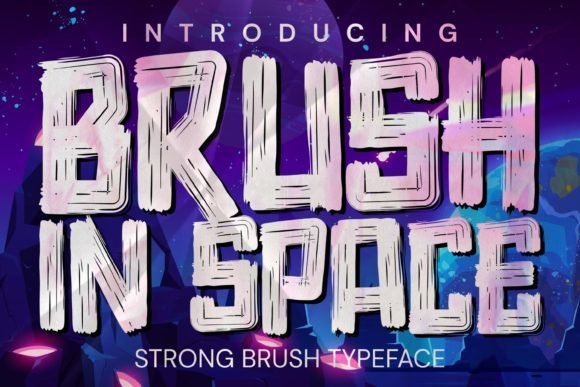
The Perfect Match for Your Next Creative Project
Have you ever stared at a blank canvas, waiting for the perfect idea to strike? It’s that moment when your imagination runs wild, and anything seems possible. As designers, we’ve all been there – searching for the perfect tool to bring our vision to life.
Enter Brush in Space Font, a bold and brushed display font that’s about to become your new best friend. This versatile font is designed to elevate any creation, whether it’s a stunning visual project or a thought-provoking message. With its unique blend of style and sophistication, Brush in Space Font is the perfect addition to any designer’s library.
What makes Brush in Space Font so valuable is its ability to add a touch of personality to any design. Whether you’re working on a personal project or a client brief, this font has the power to take your work to the next level. So why settle for ordinary when you can make a statement with Brush in Space Font?
Brush in Space Font Key Features
- Unique Characteristic: The font features a unique blend of hand-painted brushstrokes and digital precision, creating a distinctive and eye-catching visual effect.
- Font Style: Available in both Regular and Bold weights, allowing for flexibility in design applications.
Brush in Space Font Review
Overall, I’m impressed with the unique character of the Brush in Space Font. Here are some things that work well:
- ✨ The font has a quirky, hand-drawn feel that’s perfect for adding a touch of personality to designs.
- ✨ The space-inspired theme is well-executed and adds an extra layer of interest to the font.
- ✨ The font is highly customizable, allowing designers to easily adjust the weight, spacing, and other parameters to suit their needs.
- ⚠️ The font may not be suitable for large blocks of text, as the irregularities in the letterforms can make it difficult to read.
- ⚠️ Some characters, such as the lowercase “a” and “c”, may be difficult to distinguish from one another.
- ⚠️ The font may not be as readable on screens as it is on paper.
Overall, I think the Brush in Space Font is a great choice for designers who want to add a touch of whimsy and personality to their projects. However, it’s not a good fit for every project, and designers should be aware of its limitations before using it.
Tips for Getting the Most Out of Brush in Space Font
Use Brush in Space Font for creative and artistic projects, such as:
- Designing posters and flyers
- Creating digital art
- Adding a touch of whimsy to your presentations